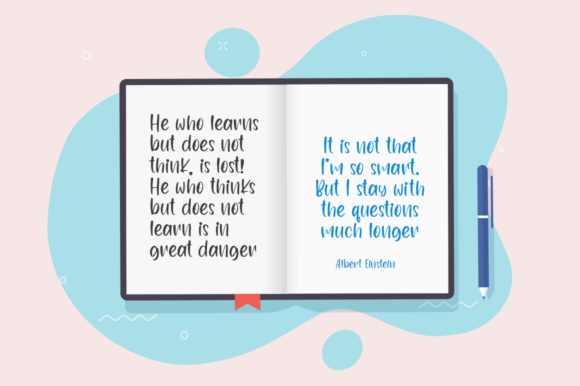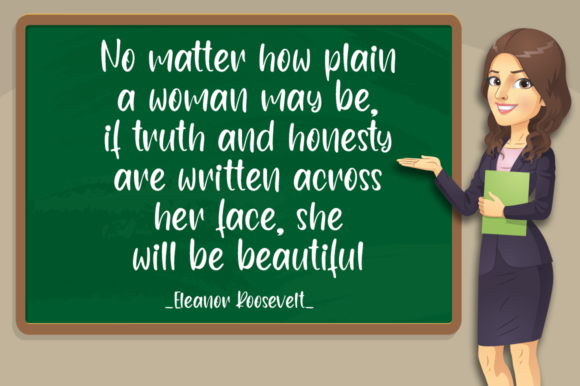
Park Twokey Month Font
db-ku.com - Script & Handwritten -- Park Twokey Month is a hand lettered font with a quirky feel. Its natural and unique style makes it incredibly fitting to a large pool of designs. The only limit is your imagination!